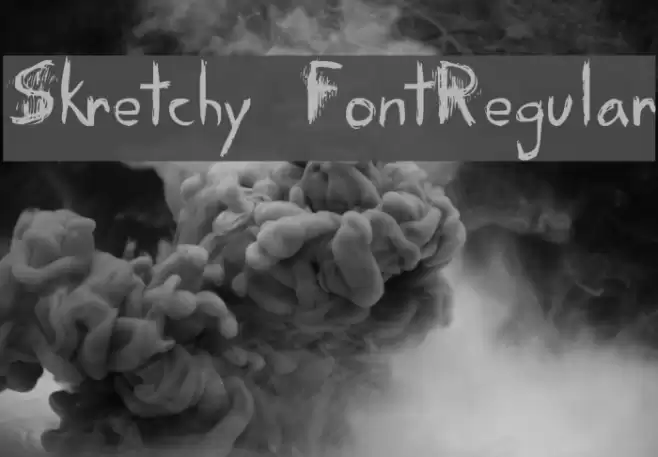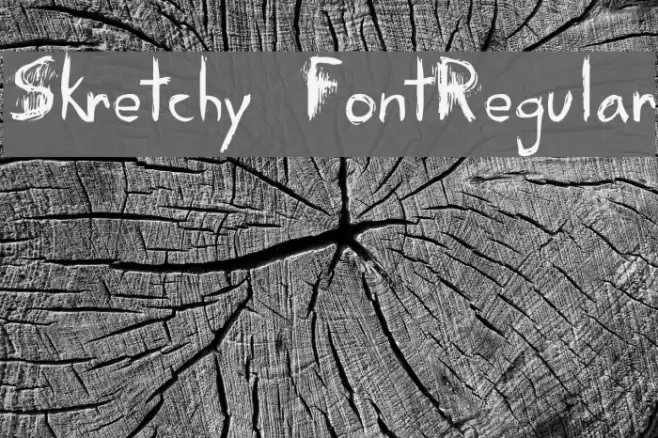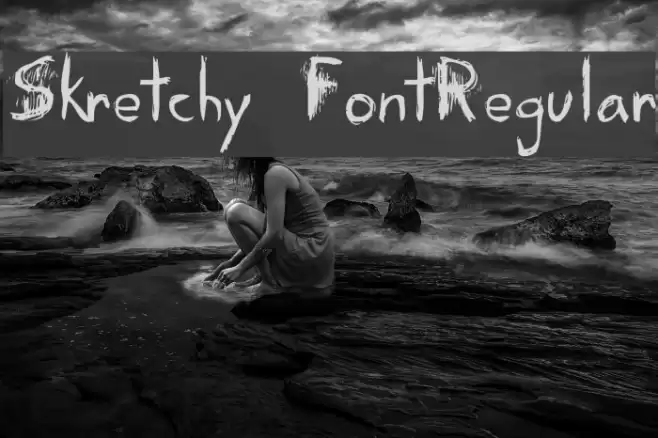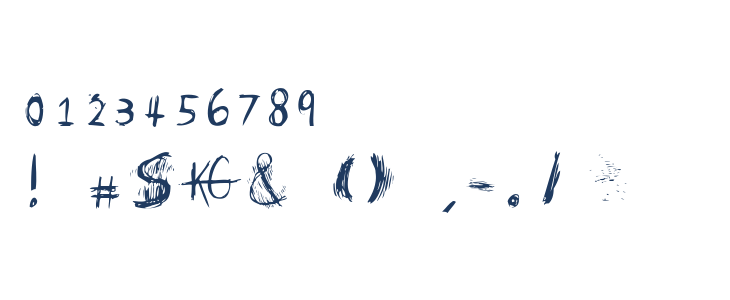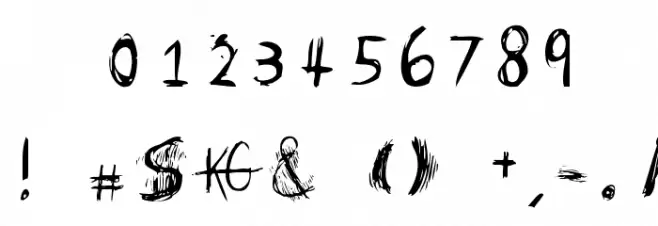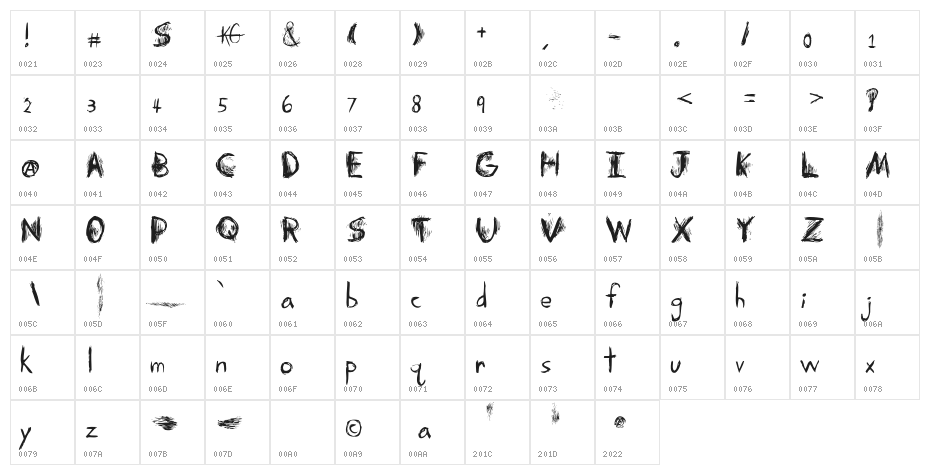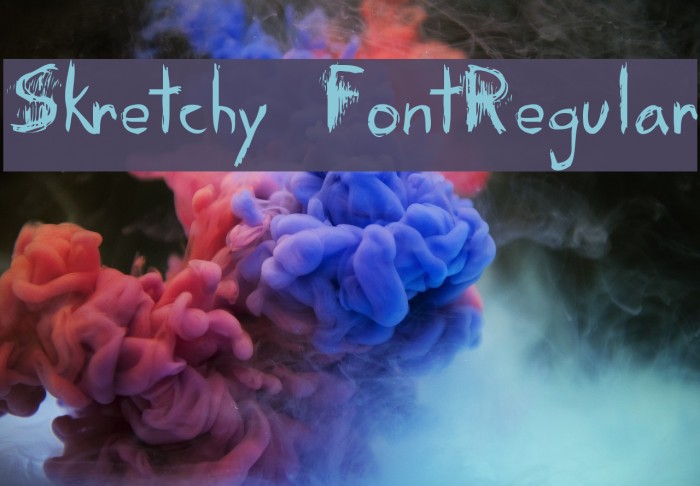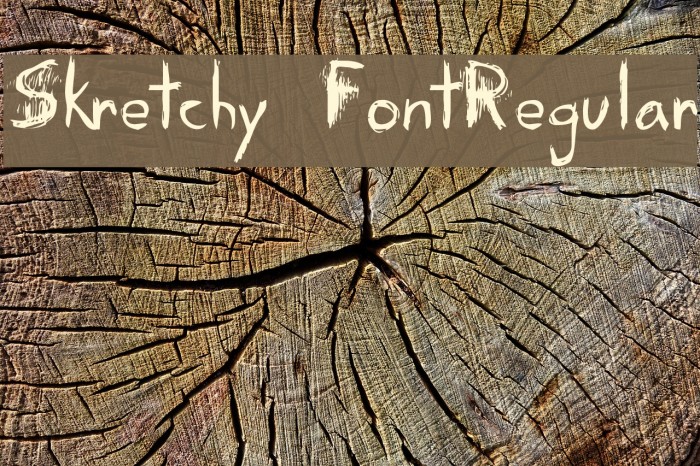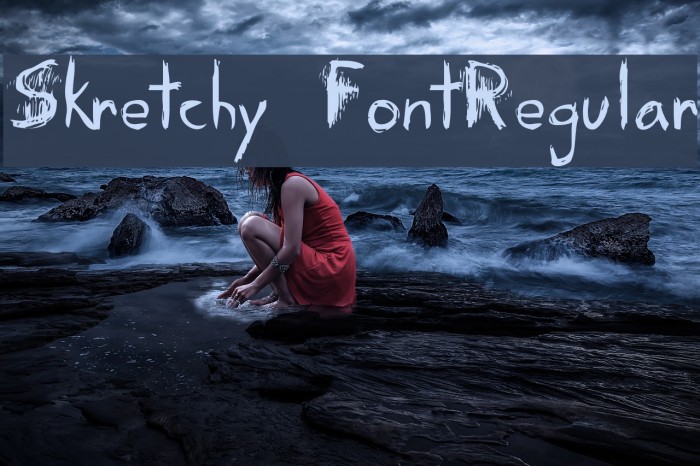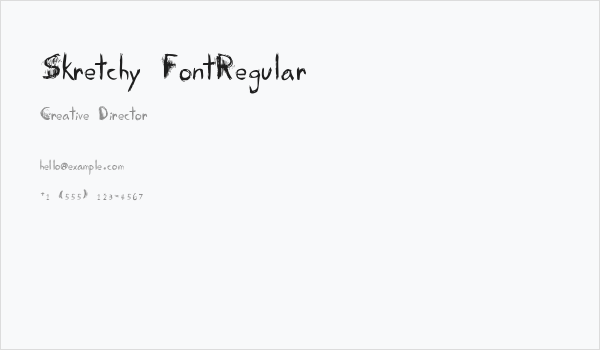
Skretchy FontRegular Font
Skretchy FontRegular Description
This font features a highly textured and distressed appearance, reminiscent of hand-drawn or sketched lettering. The strokes are uneven and rough, giving it a raw and edgy feel. The uppercase and lowercase letters maintain a consistent style, with jagged edges and a sense of movement. Numbers and special characters follow the same aesthetic, adding to the font's cohesive look. This style is bold and eye-catching, making it suitable for projects that require a strong visual impact.
A textured, hand-drawn style font with a rough, edgy appearance from Uncategorized fonts.
- Proposed Projects: Ideal for album covers, posters, graffiti art, and any design needing a bold, artistic touch.